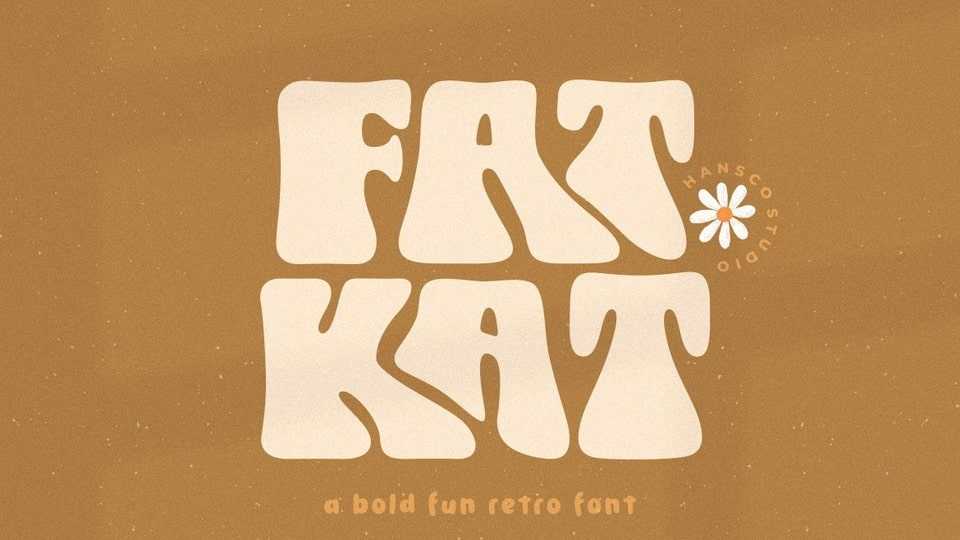
Fat Kat Font › Fontesk – Download Grátis
Download Fat Kat font, a bold retro serif typeface that feels clean and fun an incredible modern retro aesthetic. Use this Fat Kat font to add that special modern retro touch to any design idea you can think of!
Designer: HansCo